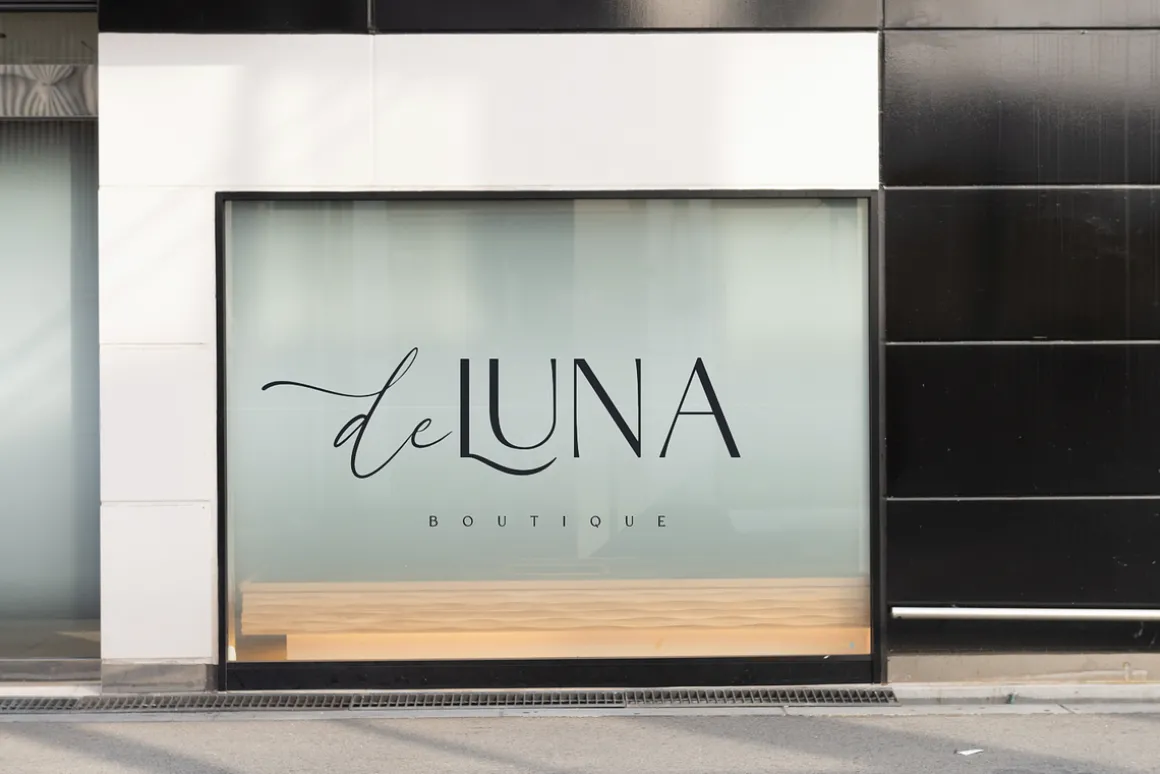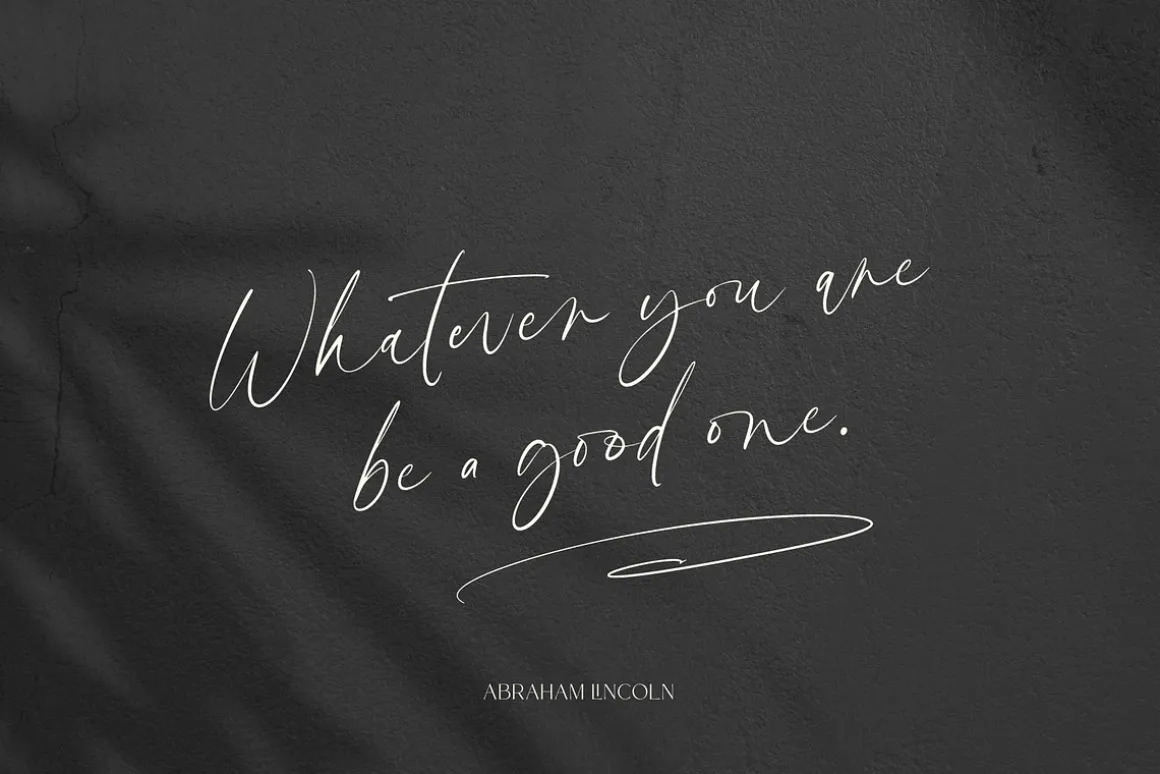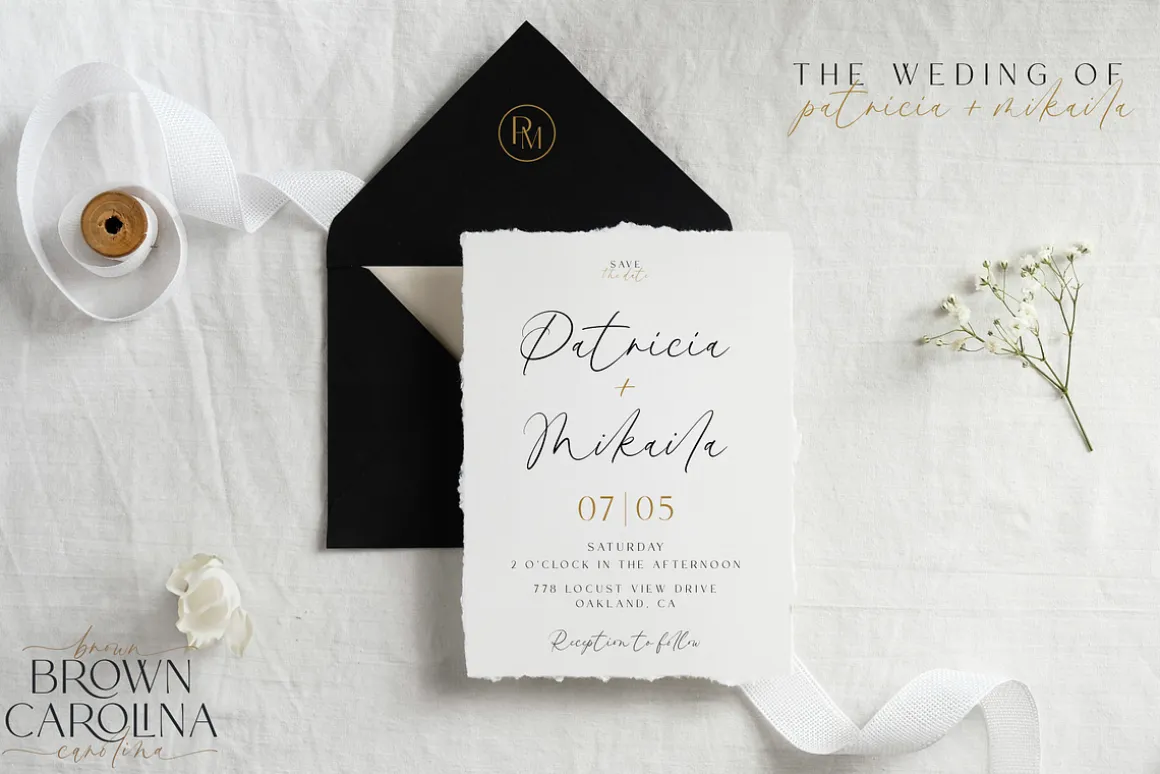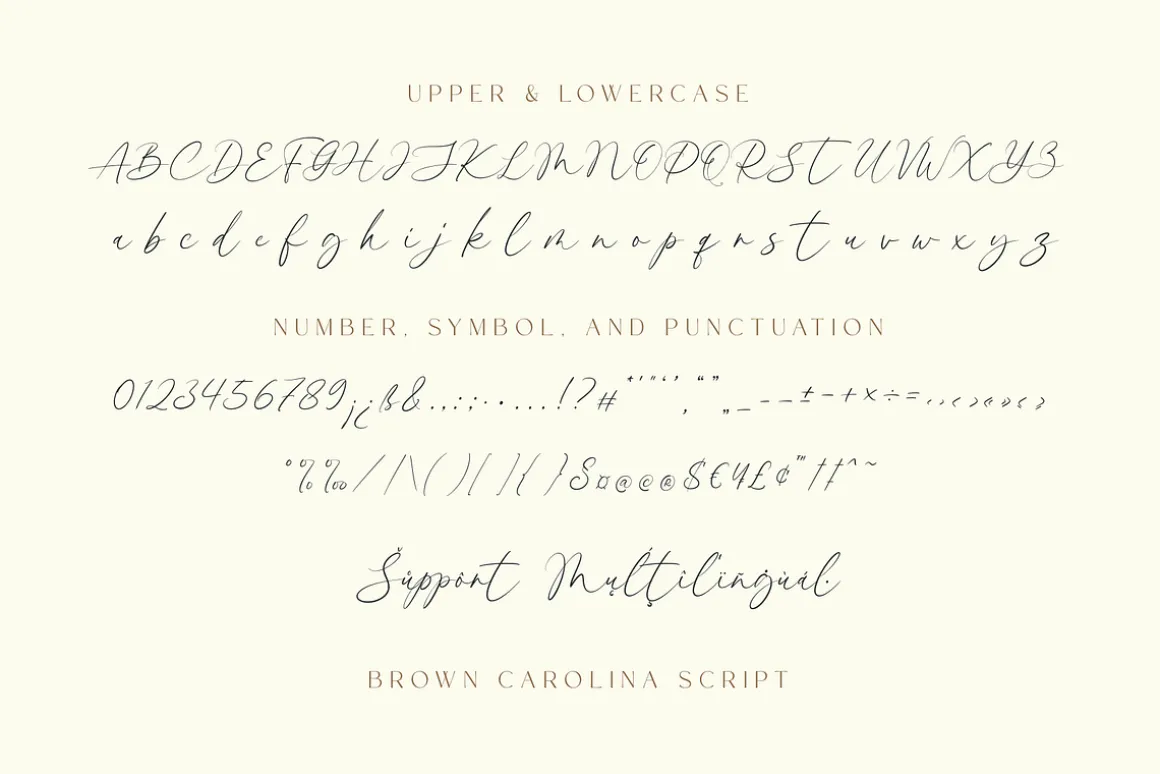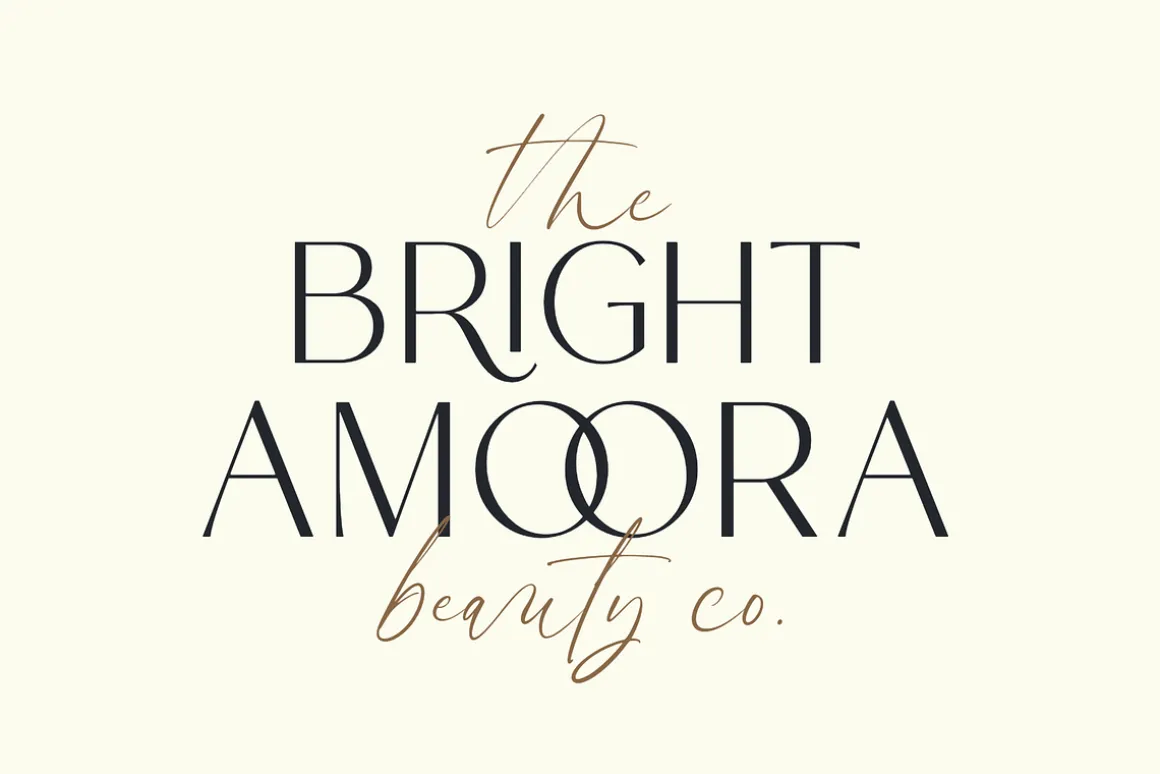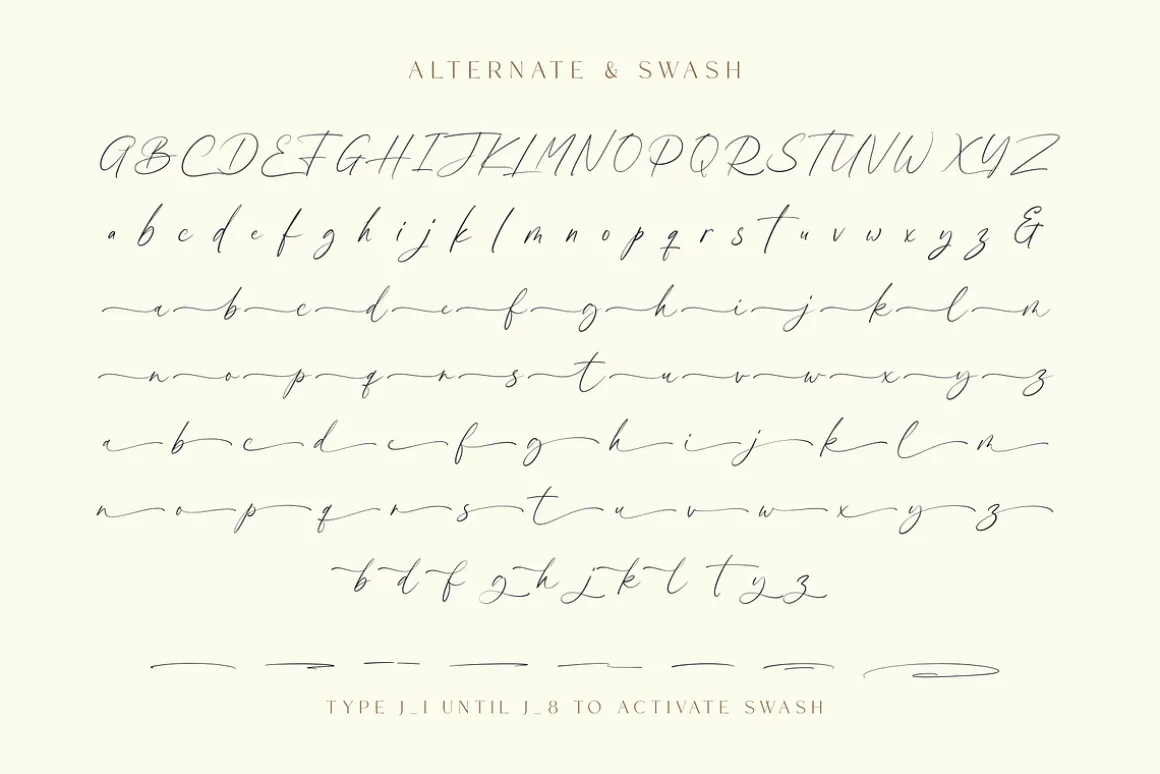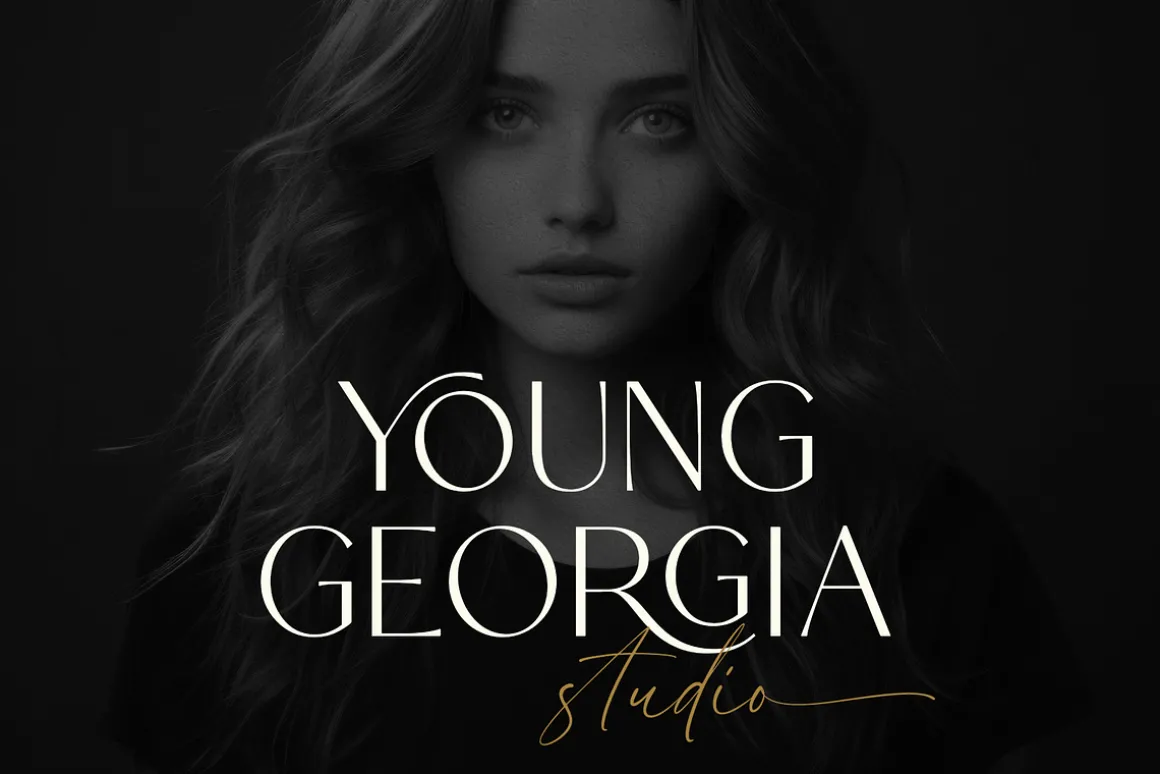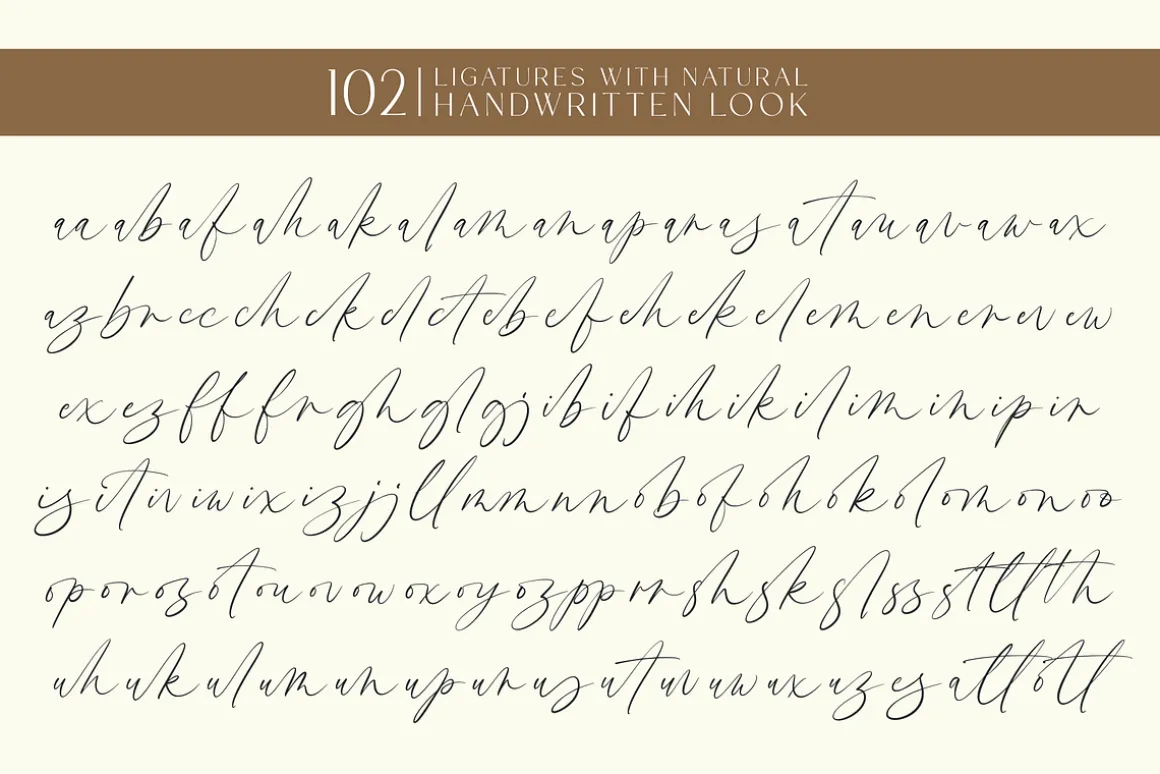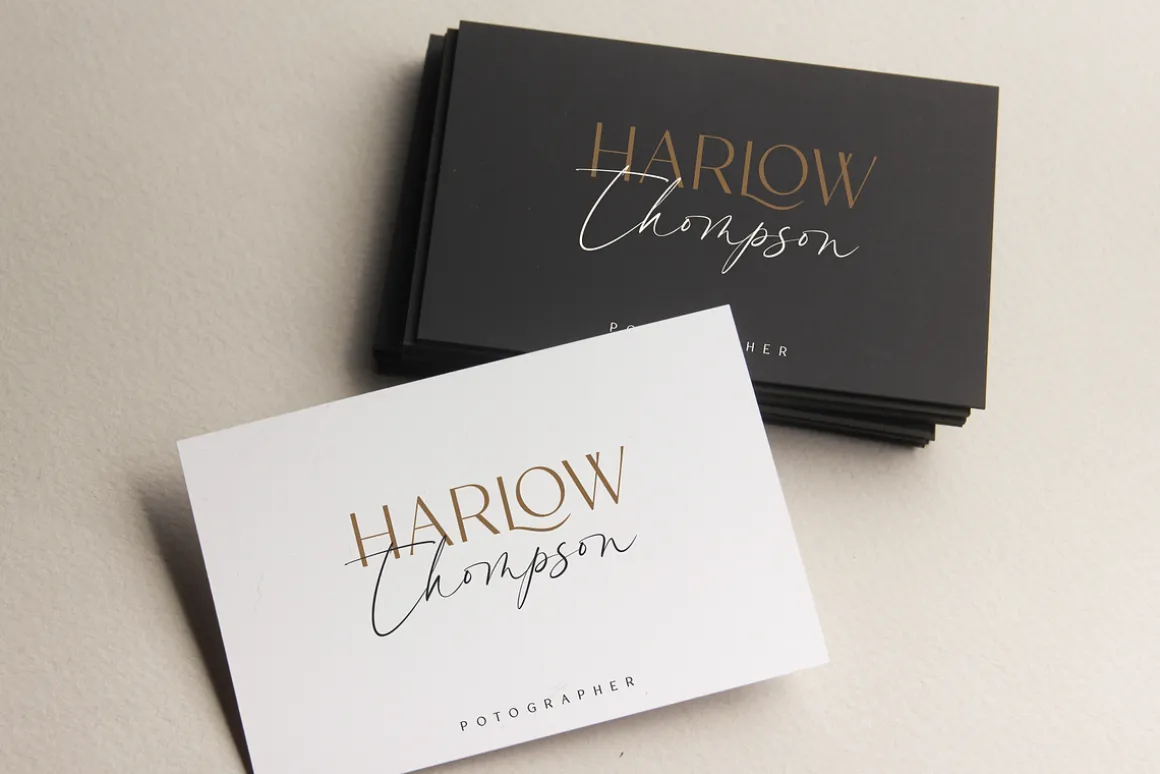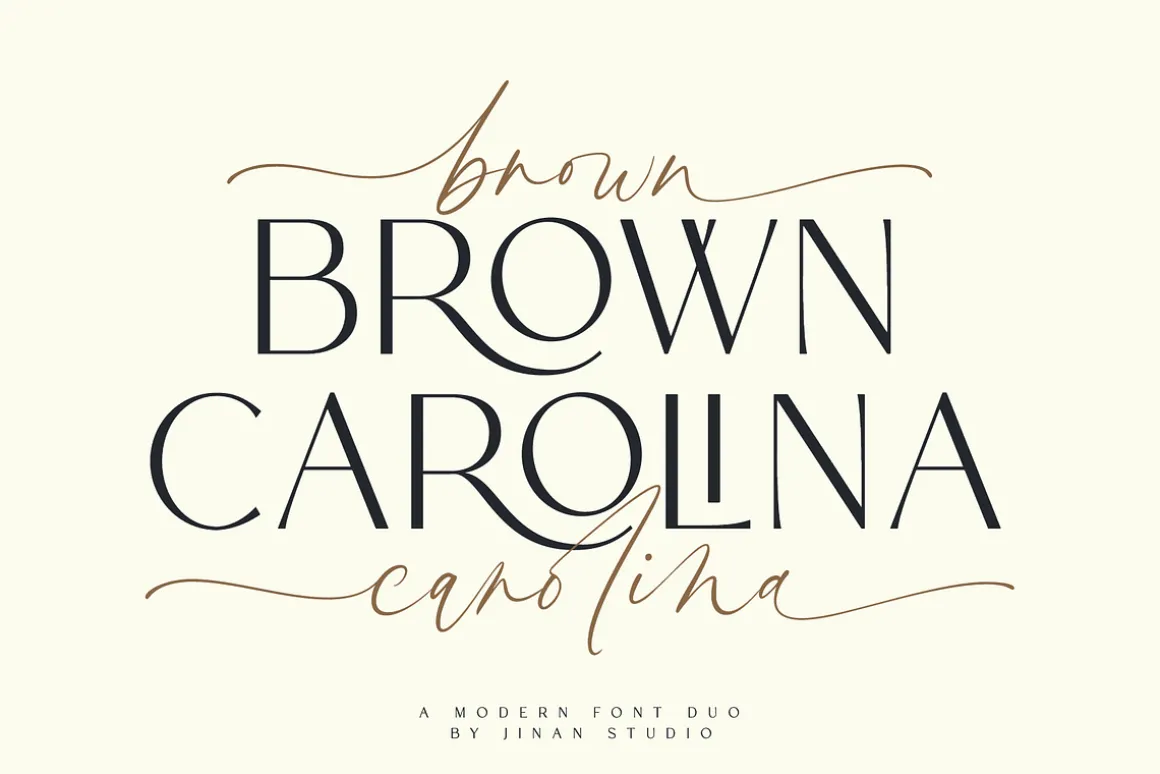
Introducing Brown Carolina, a sophisticated modern font duo that seamlessly blends the elegance of a sans-serif typeface with the artistry of a script version. This dynamic duo is meticulously crafted to elevate your designs, offering versatility, style, and a touch of timeless charm. In the script version, Brown Carolina offers a plethora of alternate characters and ligatures, enabling you to customize your text effortlessly.
Whether you’re working on wedding invitations, branding materials, business cards, or magazine layouts, Brown Carolina is designed to add a modern touch to your projects. Its versatility ensures it suits a range of design needs, making it a reliable choice for any creative endeavor.
Features
A set of uppercase and lowercase glyphs (allcaps sans version)
Number, symbol, and punctuation
Multilingual Support
Alternates, ligatures, and swashes (script version)